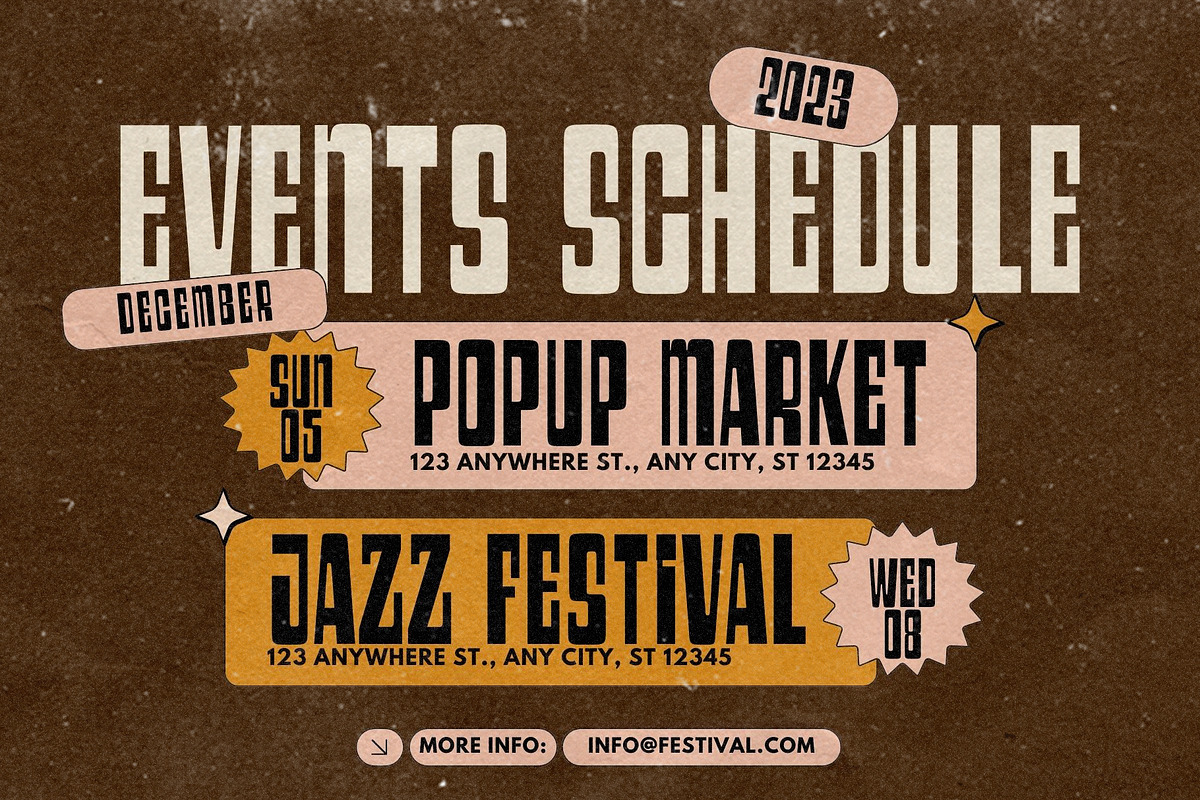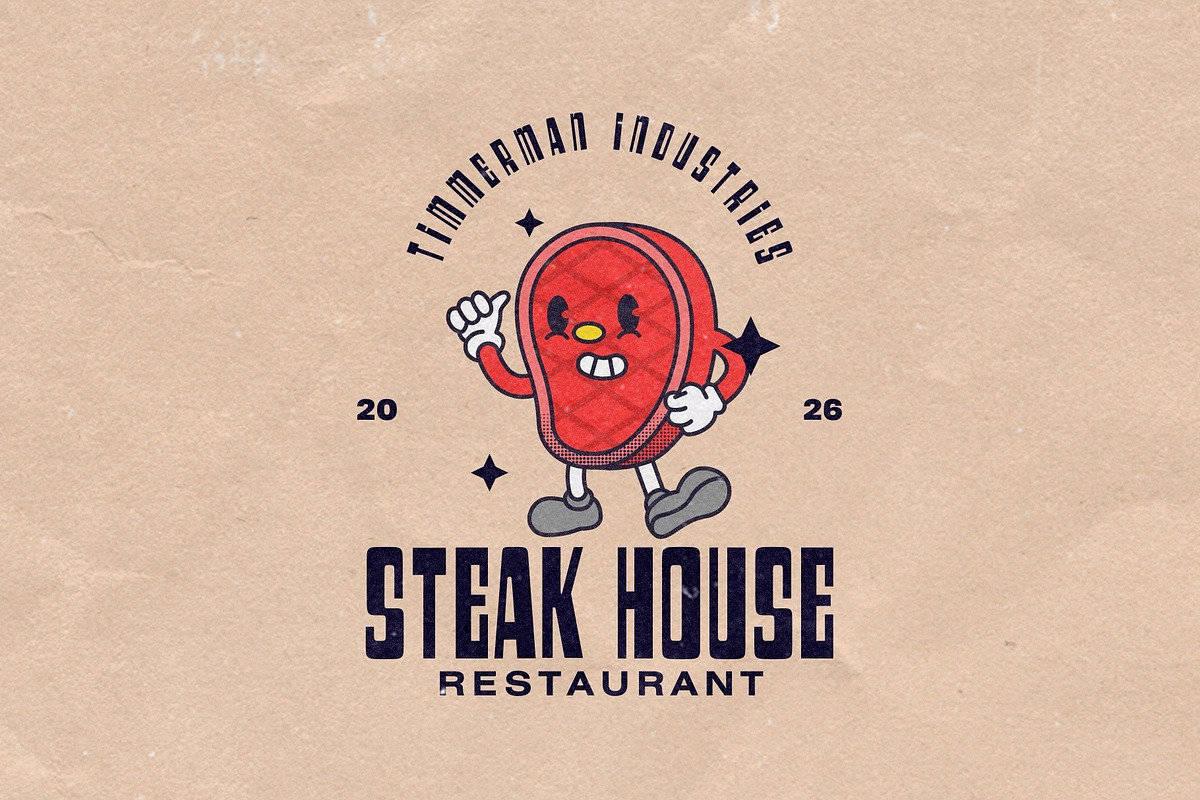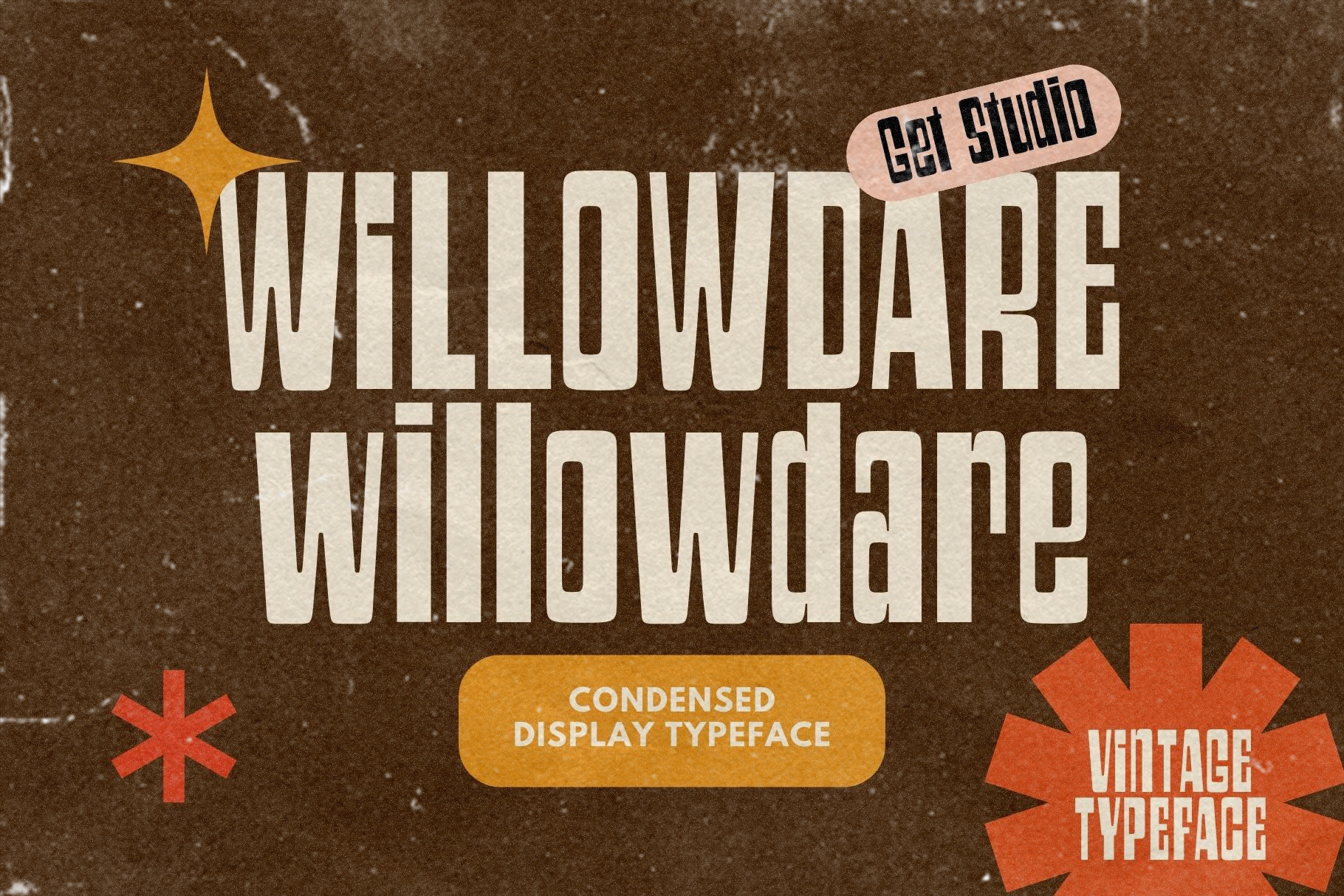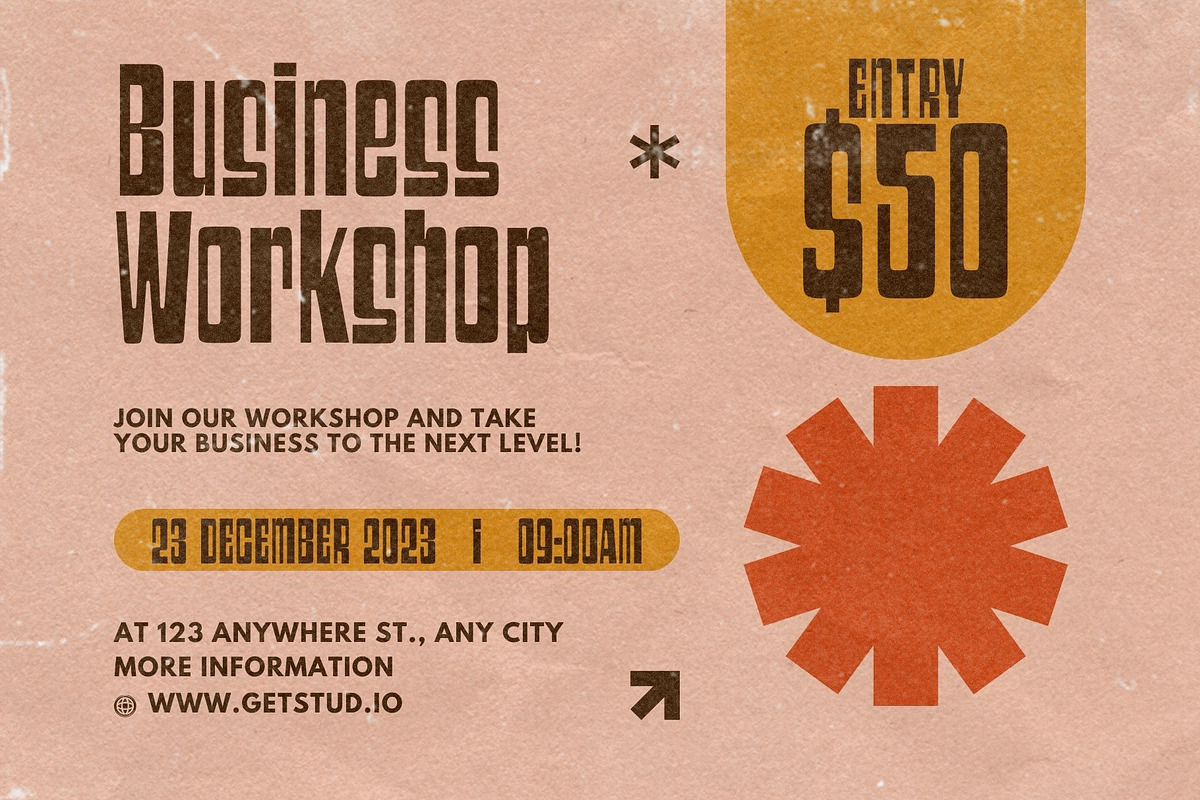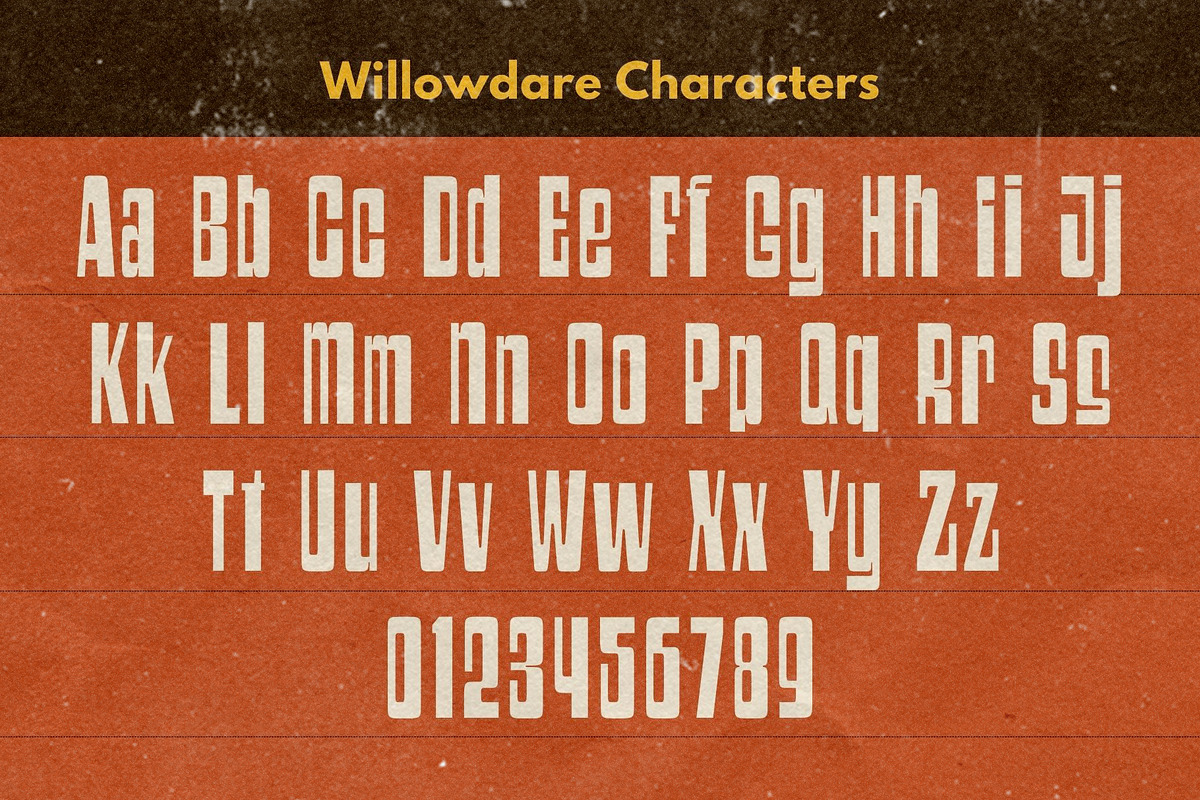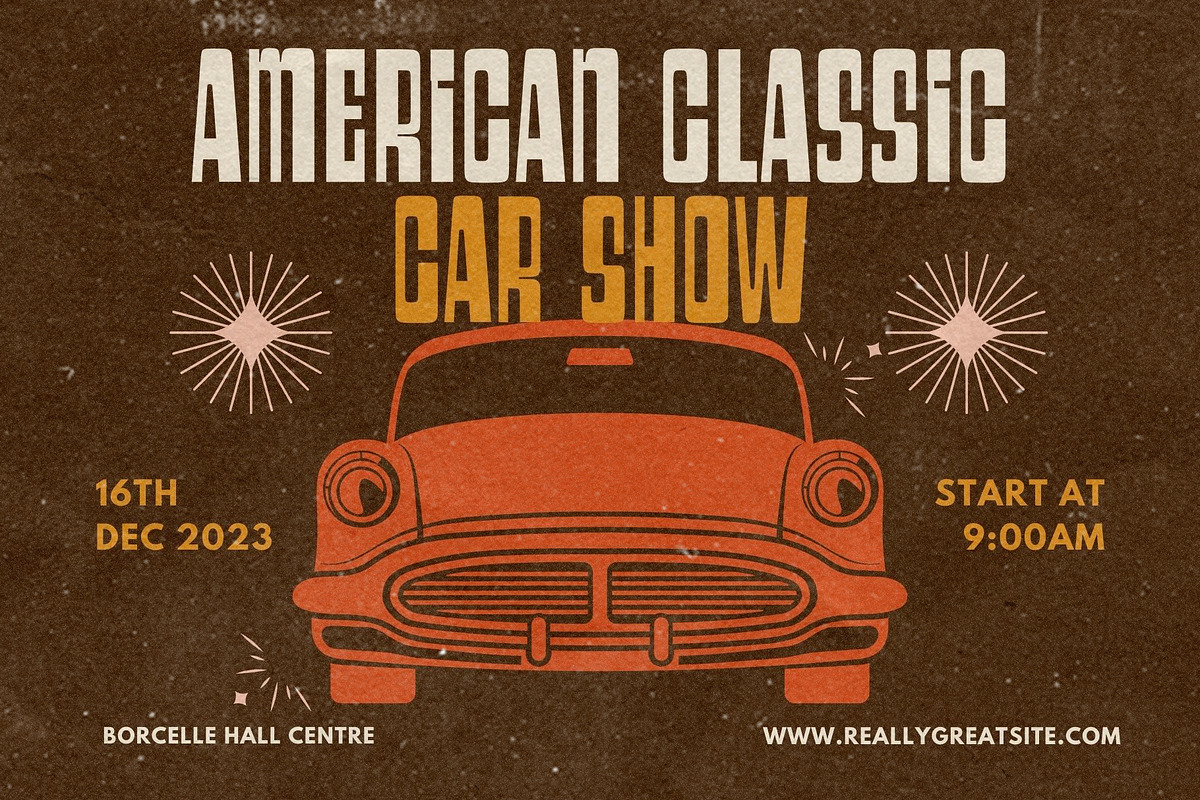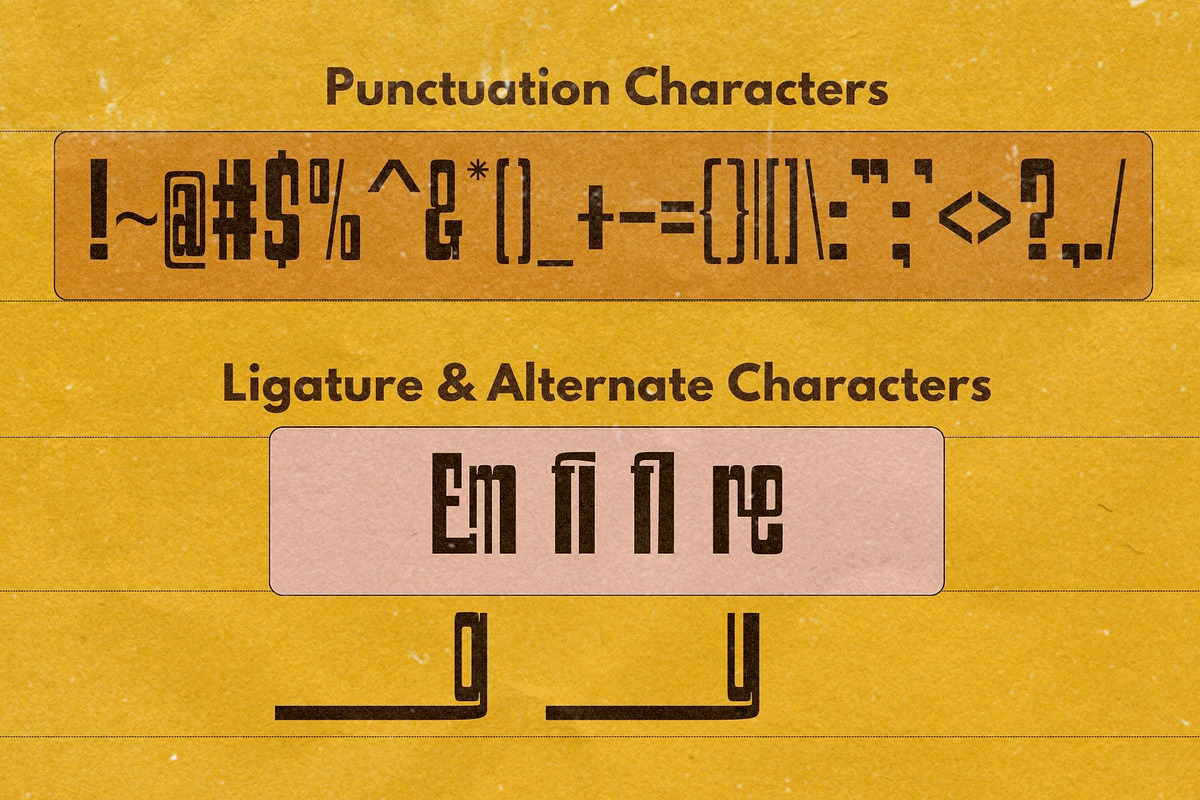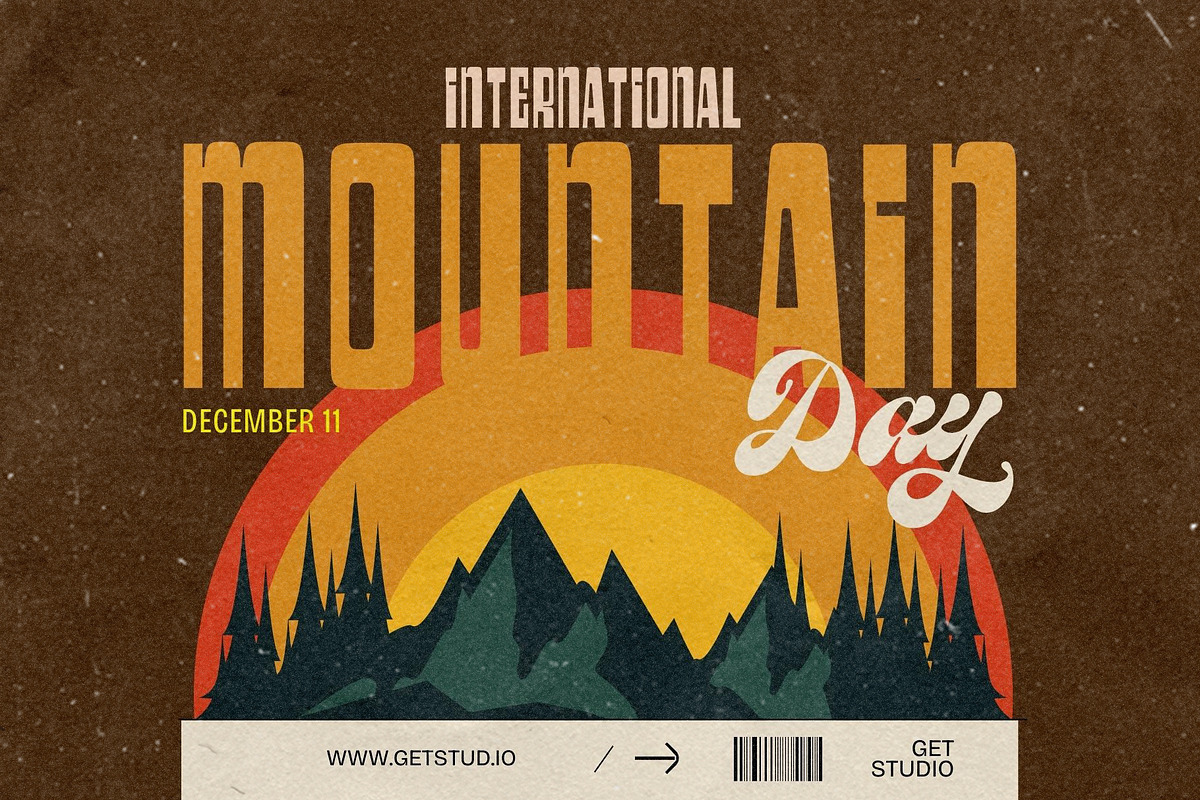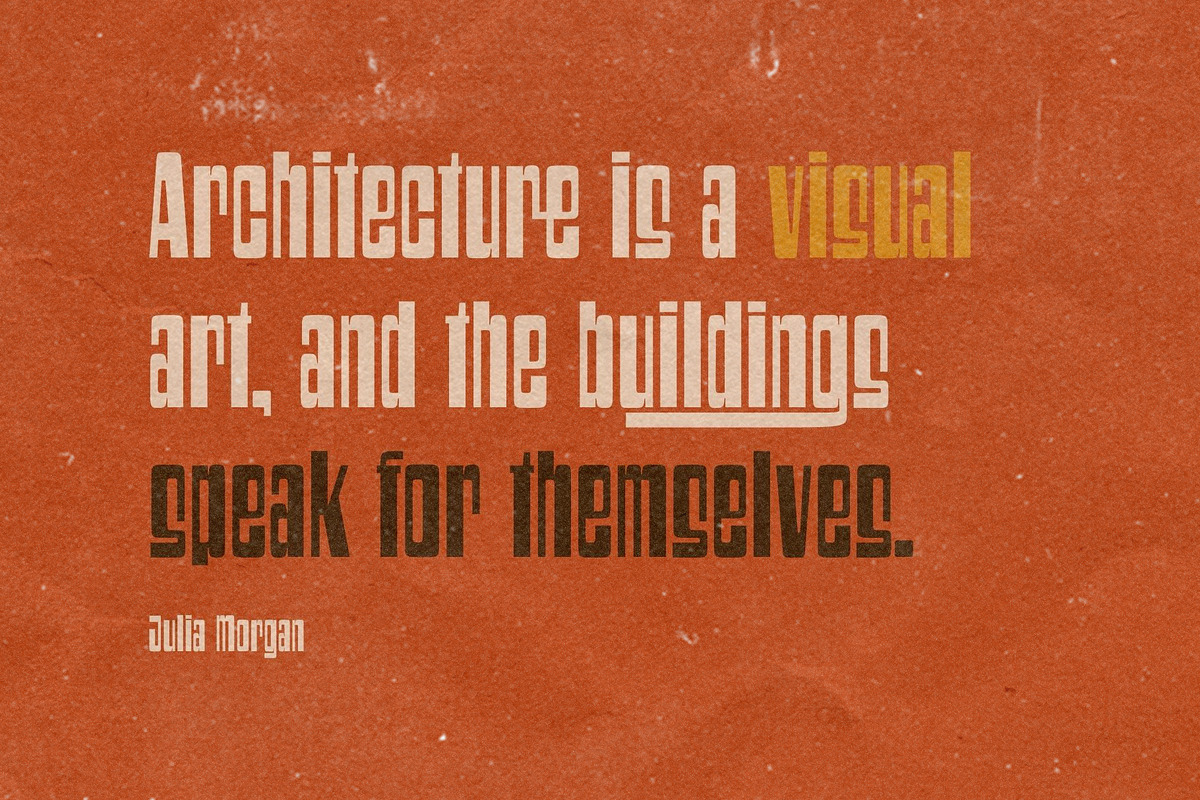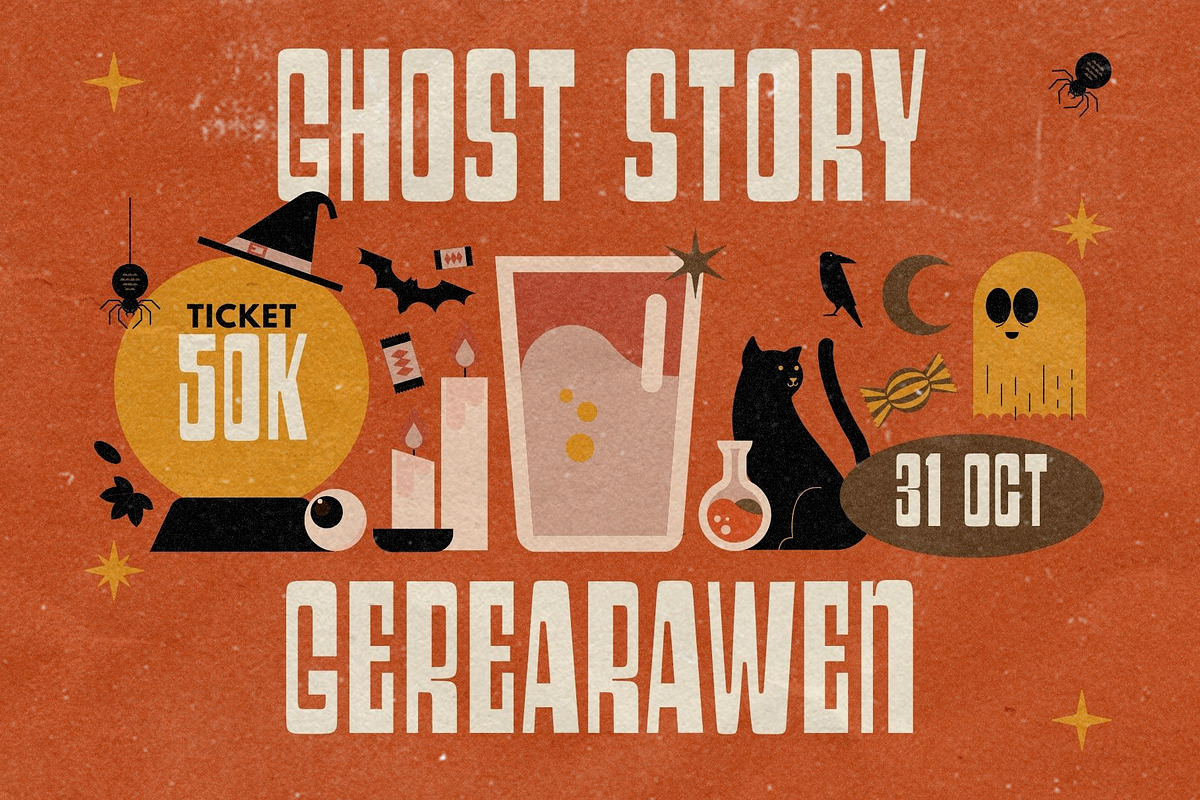
Willowdare – Condensed Display Font
Introducing Willowdare, a distinctive condensed display typeface that effortlessly blends modern aesthetics with timeless elegance. Characterized by its unique and taller letterforms, Willowdare commands attention with a bold and sophisticated presence.
This font is meticulously crafted to convey a sense of sleekness and versatility, making it ideal for a wide range of design applications.